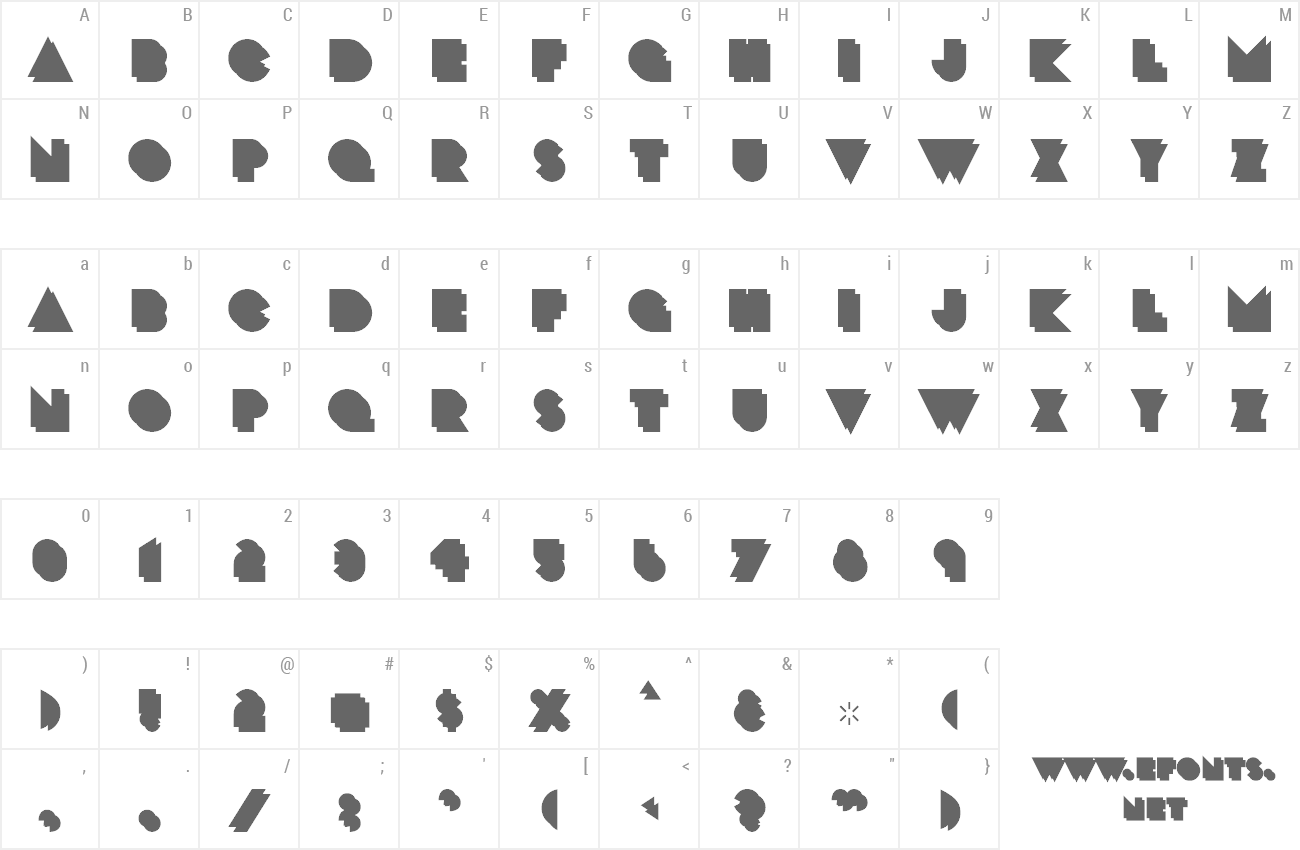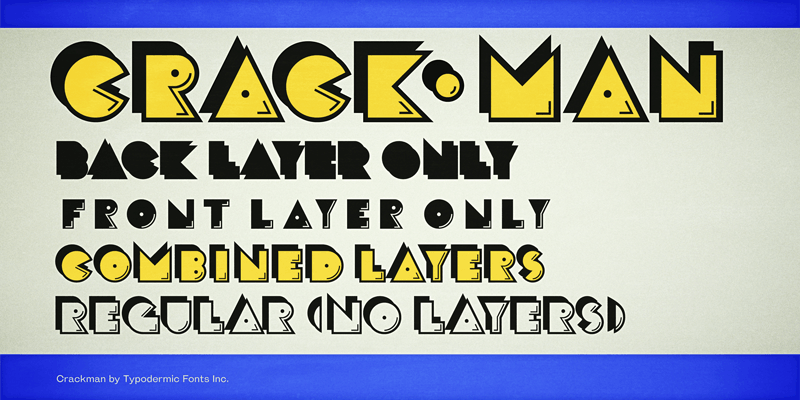
| Font name: | Crackman |
Crack Man is an art deco style, counterless headliner with an early 1980’s video game slant. These fonts include a license that allows free commercial use: sometimes referred to as a desktop license. This allows you to install the fonts on a computer and use them to create posters, web graphics, game graphics, t-shirts, videos, signs, logos and more. Read the license agreement for details. If you'd like to embed these fonts in an app, ebook, on the web or anything that's not covered by the desktop license agreement, visit the link below. You'll find distributors who offer different types of licenses or you can contact me for help. http://typodermicfonts.com/crack-man/ |